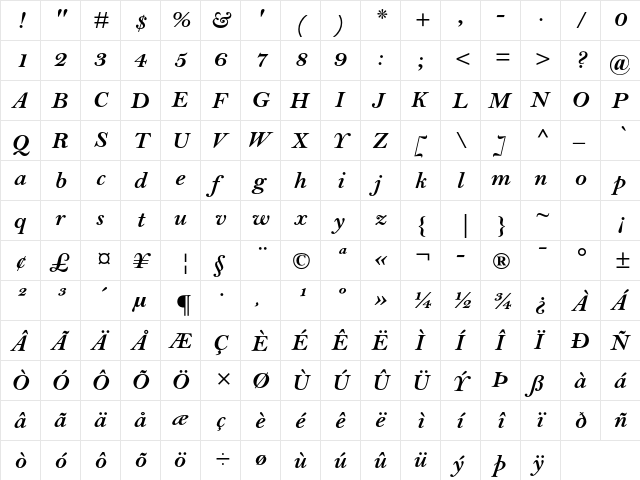
Bell MT Std Bold Italic
| Designer | Richard Austin |
Design Context for Bell MT Std Typeface
Bell MT Std offers clean, dependable letterforms without strong stylistic allegiance, making it a practical choice for designers who need flexibility. Its italic angle brings a sense of urgency and motion to the letterforms. The heavy weight commands attention and anchors typographic hierarchies.
Pro Tip: Use Bell MT Std for emphasis, pull quotes, and subheadings where its slanted energy can add rhythm to the layout.